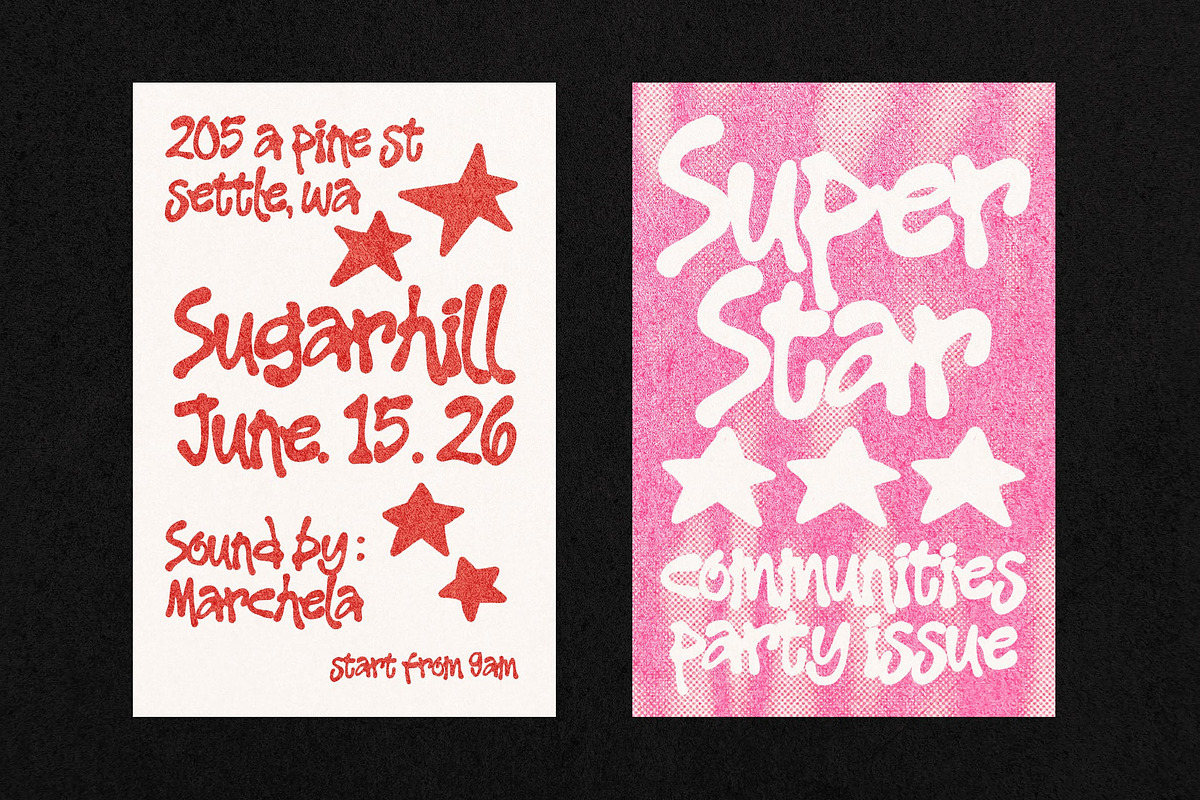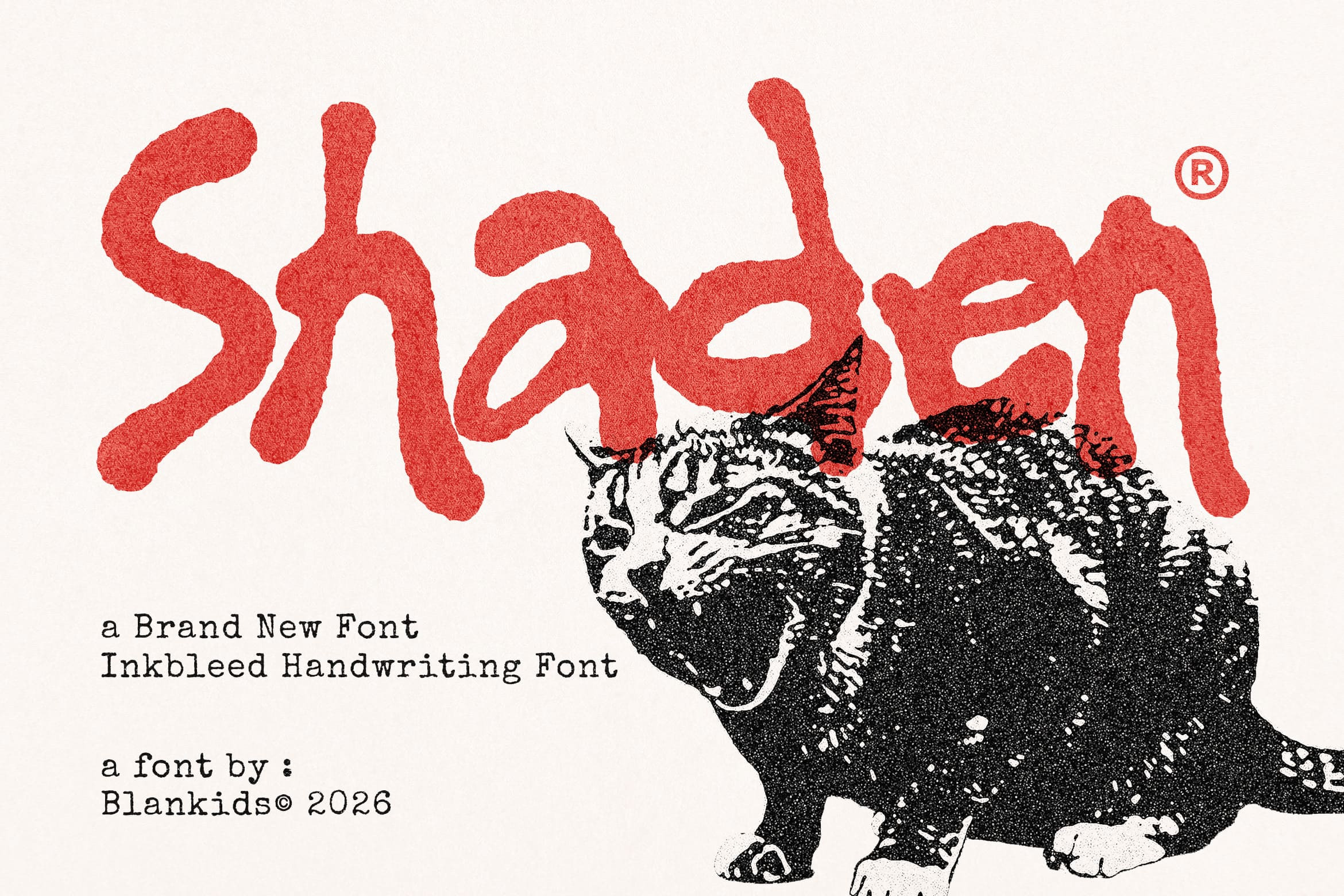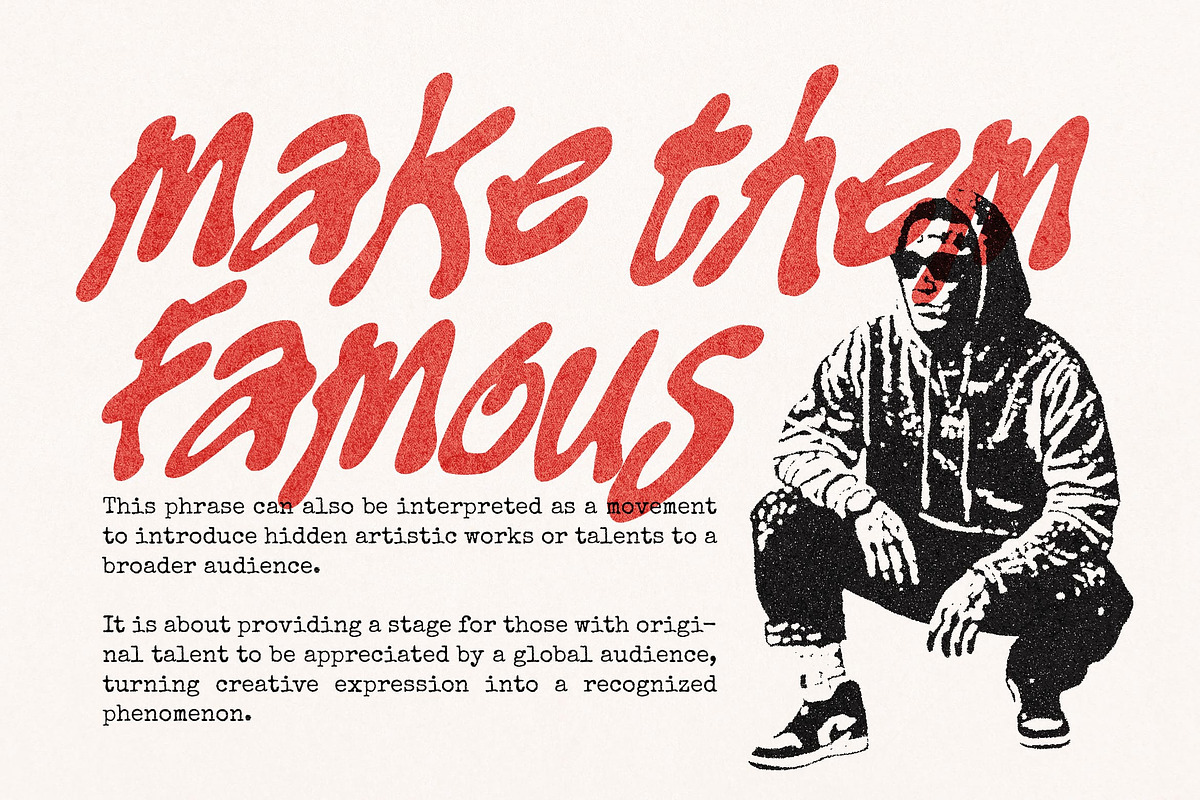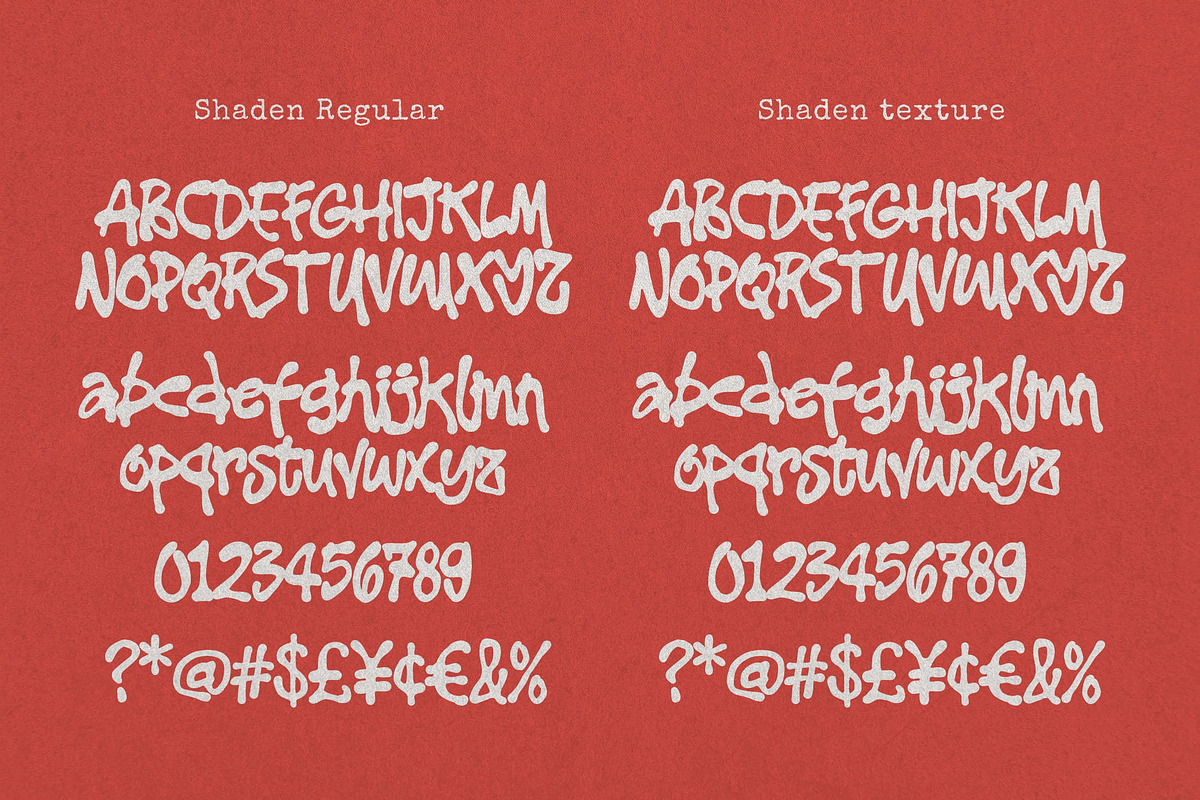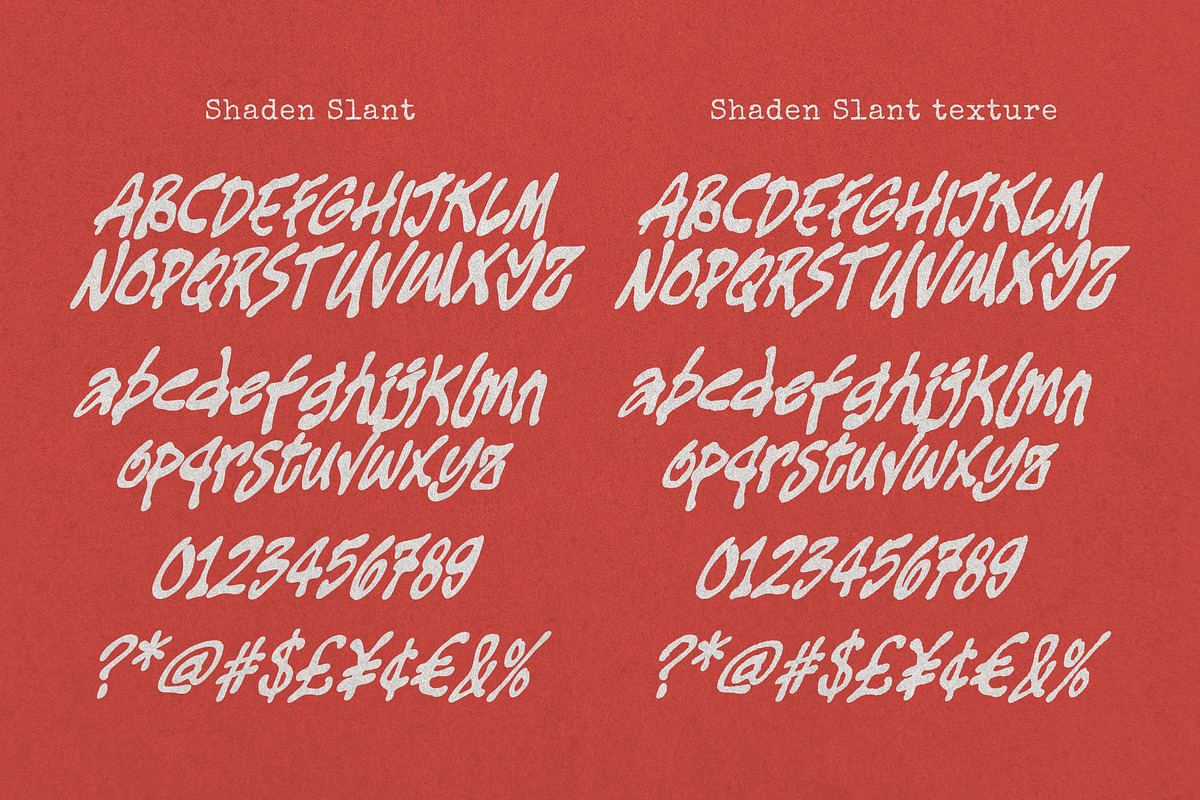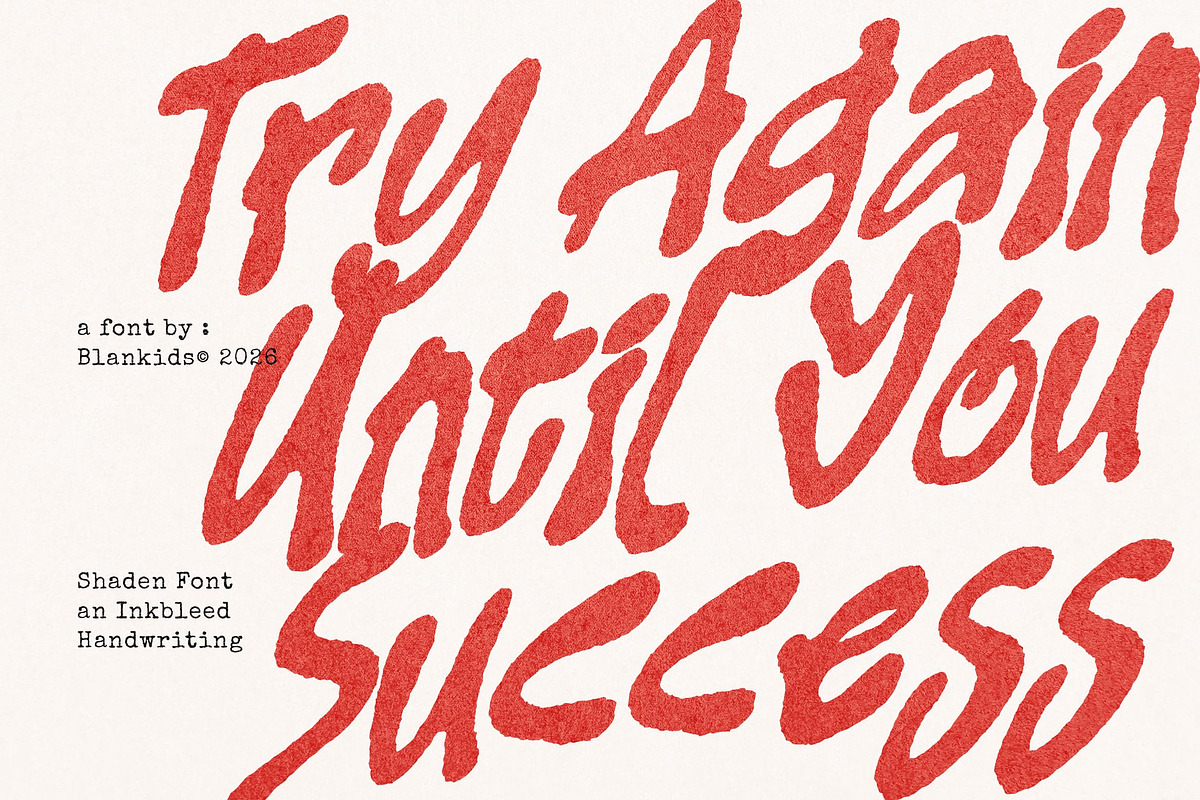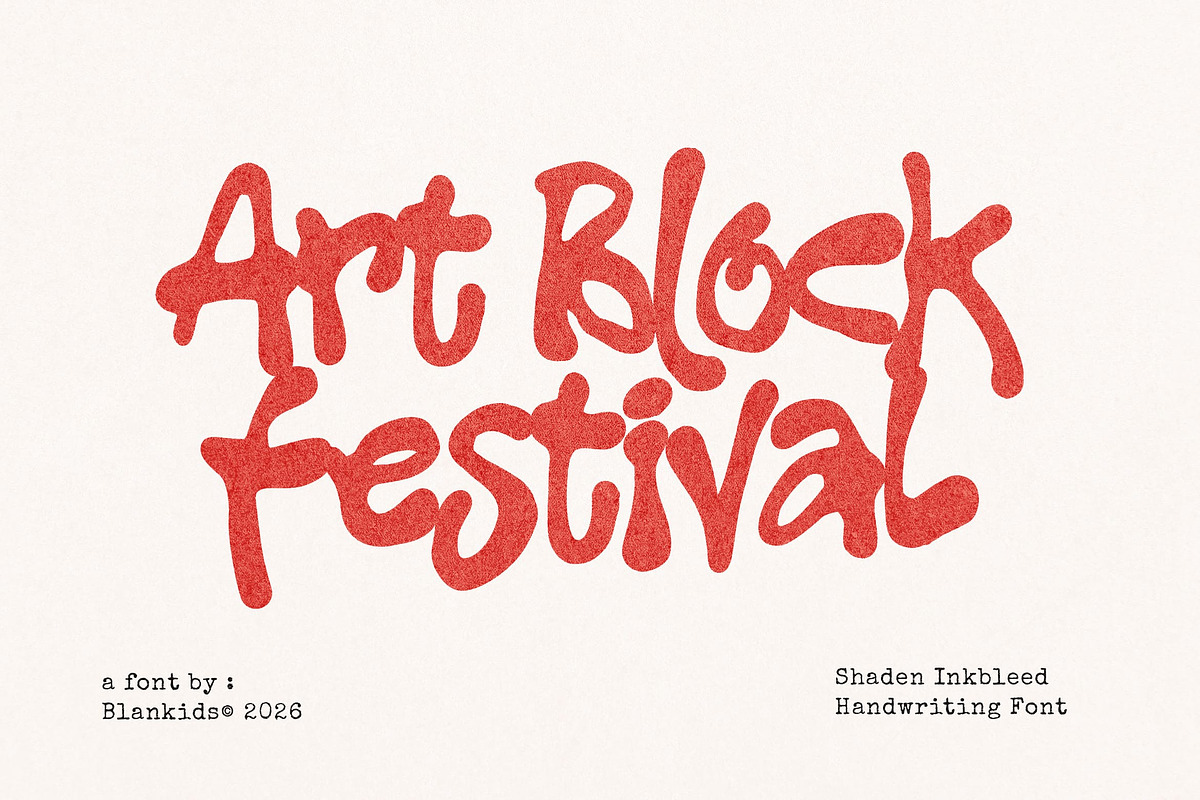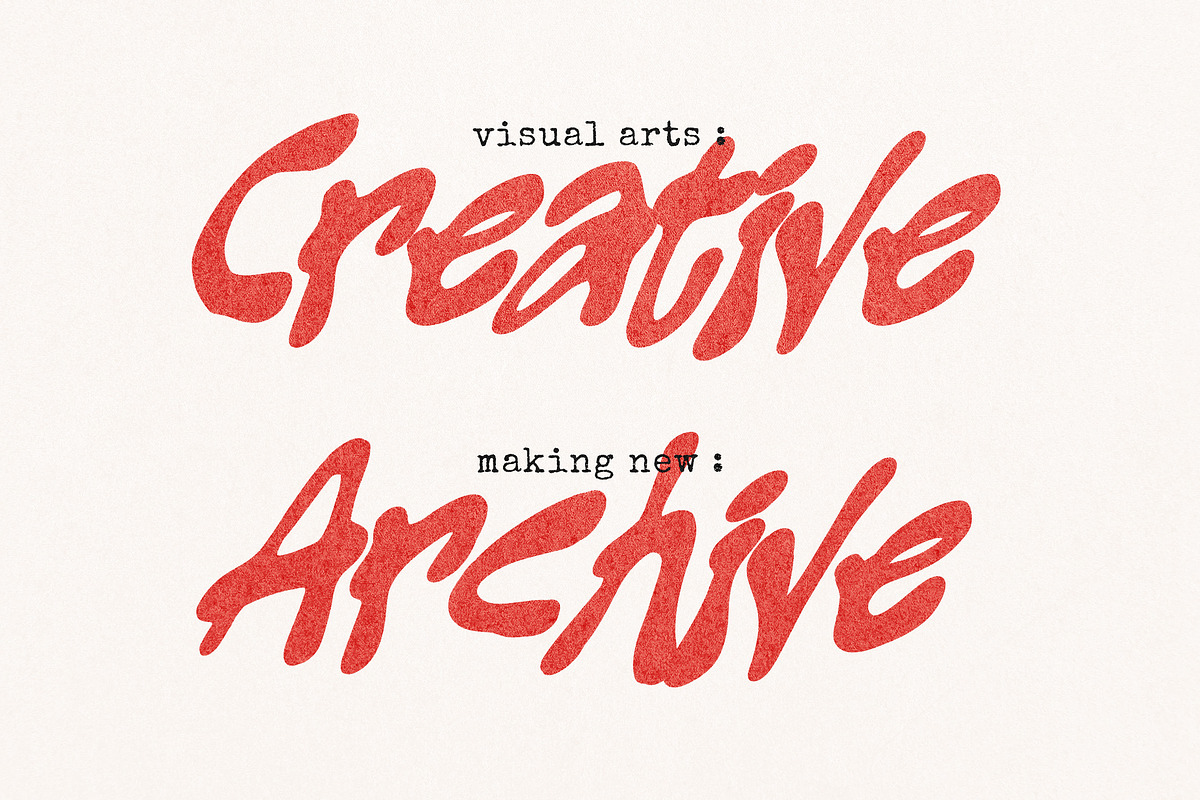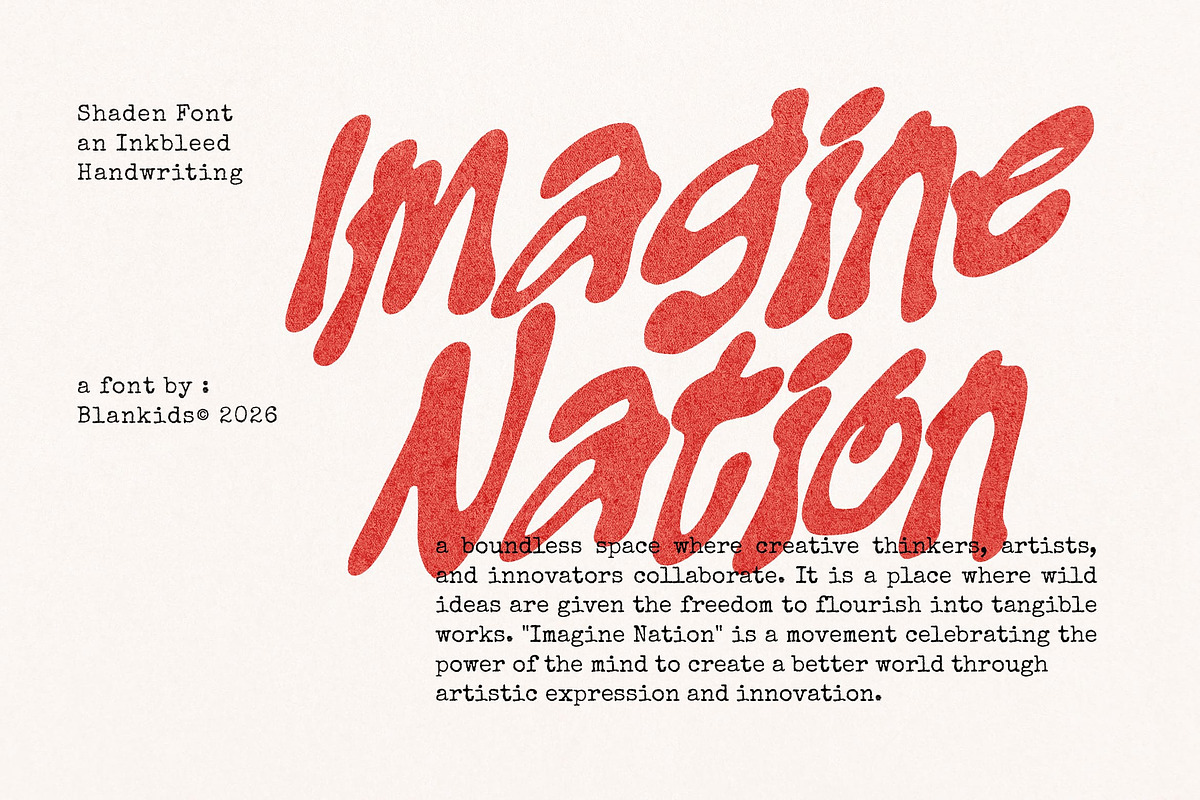
Shaden an Inkbleed Handwritting Font
Give your creative projects a raw, authentic, and edgy vibe with Shaden, a brand-new inkbleed handwriting font crafted by Blankids (2026). Inspired by urban culture, street art, and vintage printing textures, Shaden delivers a bold, melting-edge look that instantly grabs attention.
Whether you're designing posters, album covers, apparel, branding, or indie zines, Shaden brings a unique personality to your typography game.
Shaden Regular: Clean yet chunky handwritten style.
Shaden Texture: Features a realistic distressed inkbleed look for extra vintage grit.
Shaden Slant & Slant Texture: Dynamic italic variations for added movement and flow.
Full Character Set: Uppercase, lowercase, numbers, punctuation, and multilingual support .
Inkbleed / distressed typography style
Perfect for streetwear brands, music posters, event flyers, and bold quotes